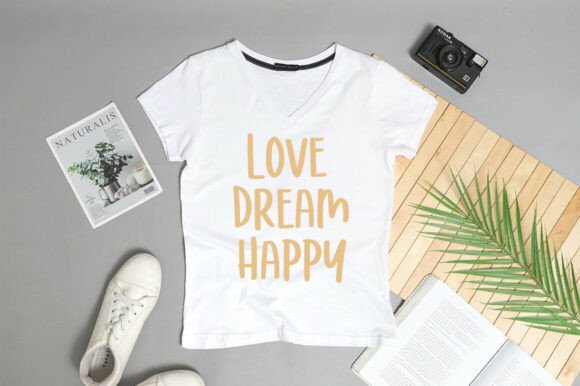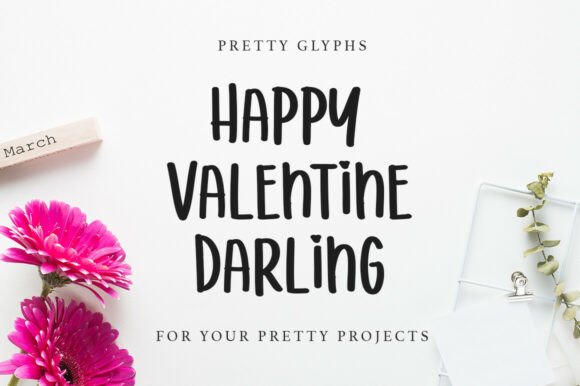
Introducing Frontier Brush Font: Embodying the Spirit of Adventure and Handcrafted Love
Are you searching for a font that captures the essence of the open road, the thrill of exploration, and the warmth of personal connections? Look no further than the Frontier Brush Font, a beautiful handwritten display font that embodies the spirit of adventure and handcrafted love. This lovely typeface combines tall, slender forms with a charming, heart-dotted “i” to create a unique and captivating visual identity.
The Inspiration Behind Frontier Brush Font
The Frontier font draws inspiration from the neat penmanship found in cherished travel journals. Its rhythmic, upright stance feels organized yet deeply personal, evoking the sense of a treasured keepsake. This font is designed to bring a sense of adventure and “handcrafted love” to your designs, making it ideal for wedding stationery, boutique branding, and other projects that celebrate personal connections.
Key Features of Frontier Brush Font
- Tall, slender forms: The Frontier font features tall, slender letterforms that convey a sense of elegance and sophistication.
- Charming, heart-dotted “i”: The heart-dotted “i” adds a touch of whimsy and playfulness to the font, making it perfect for projects that require a personal and emotional connection.
- Rhythmic, upright stance: The font’s rhythmic, upright stance creates a sense of balance and harmony, making it ideal for designs that require a sense of structure and organization.
- Clean, narrow structure: The clean, narrow structure of the Frontier font allows for elegant layouts that feel airy and modern while maintaining a soulfully authentic touch.
Perfect for Wedding Stationery and Boutique Branding
The Frontier font is particularly well-suited for wedding stationery and boutique branding projects. Its elegant, handcrafted feel makes it perfect for:
- Personalized invitations: Use the Frontier font to create beautiful, one-of-a-kind invitations that reflect the couple’s personality and style.
- Delicate product labels: Add a touch of elegance to your product labels with the Frontier font, perfect for boutique brands that want to stand out.
- Heartwarming social media quotes: Use the Frontier font to create inspiring and heartwarming social media quotes that resonate with your audience.
Ideal for Projects Centered on Home, Travel, and Personal Connection
The Frontier font is especially effective for projects centered on home, travel, and personal connection. Its unique blend of elegance and whimsy makes it perfect for:
- Home decor branding: Use the Frontier font to create a warm and inviting brand identity for your home decor business.
- Travel blogs and websites: Add a touch of adventure and exploration to your travel blog or website with the Frontier font.
- Personalized gifts and stationery: Create beautiful, one-of-a-kind gifts and stationery with the Frontier font, perfect for special occasions and milestones.
Tips for Using Frontier Brush Font
To get the most out of the Frontier font, here are a few tips to keep in mind:
- Pair with complementary fonts: Pair the Frontier font with complementary fonts to create a unique and visually appealing typography scheme.
- Experiment with colors and textures: Don’t be afraid to experiment with different colors and textures to add depth and interest to your designs.
- Use for headlines and titles: The Frontier font is perfect for headlines and titles, where its elegant and whimsical feel can shine.
In conclusion, the Frontier Brush Font is a beautiful and versatile typeface that embodies the spirit of adventure and handcrafted love. Its unique blend of elegance and whimsy makes it perfect for a wide range of design projects, from wedding stationery and boutique branding to home decor and travel blogs. With its clean, narrow structure and charming, heart-dotted “i”, the Frontier font is sure to add a touch of warmth and personality to your designs.